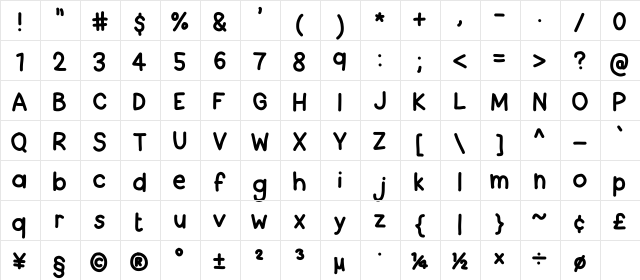
Back to School Medium
Design Context for Back to School Typeface
Back to School takes a measured approach to typography — its balanced proportions and neutral character make it a reliable workhorse for both digital and print work.
Pro Tip: Use Back to School in both headline and body roles to test its range before committing to a single application.